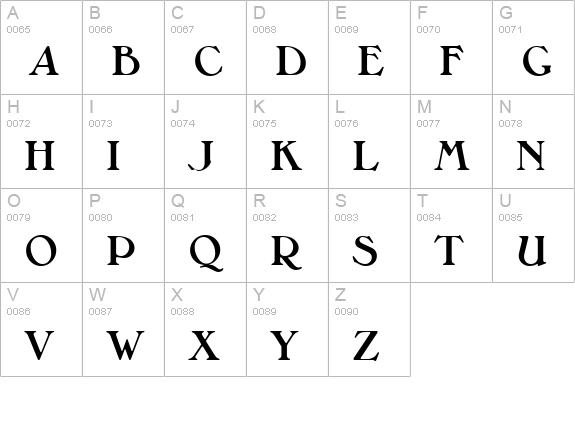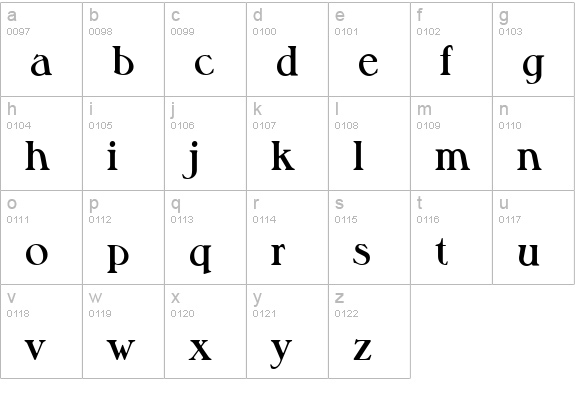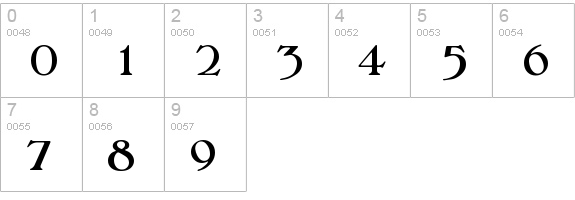
MelbourneSerial-Bold Font Details
MelbourneSerial-Bold is a strong, high-contrast variant in the MelbourneSerial typeface family \xE2\x80\x94 well suited to headlines, attention-grabbing titles, and strong calls-to-action.
MelbourneSerial-Bold is a striking and bold typeface designed for making a powerful statement in your designs. With its modern and sleek aesthetic, this font is perfect for headlines, titles, logos, and other design projects that require a strong visual presence. The thick strokes and sharp angles of MelbourneSerial-Bold exude confidence and authority, making it an ideal choice for projects that demand attention. What sets MelbourneSerial-Bold apart is not only its bold appearance but also its versatility. Whether you're designing for print or digital media, this font will make your text stand out and leave a lasting impression on your audience. Its clean lines and distinct character make it a popular choice for designers looking to make a bold statement. The best part? MelbourneSerial-Bold is available for free download at FontsMarket.com, giving you easy access to this powerful font for all your design needs. So why wait? Download MelbourneSerial-Bold today and take your designs to the next level with this impactful typeface.